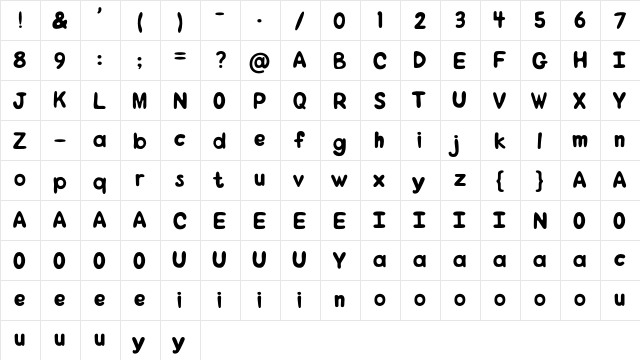
Magic Mushroom Regular
| Designer | Qara Anass |
Design Context for Magic Mushroom Typeface
Magic Mushroom offers clean, dependable letterforms without strong stylistic allegiance, making it a practical choice for designers who need flexibility.